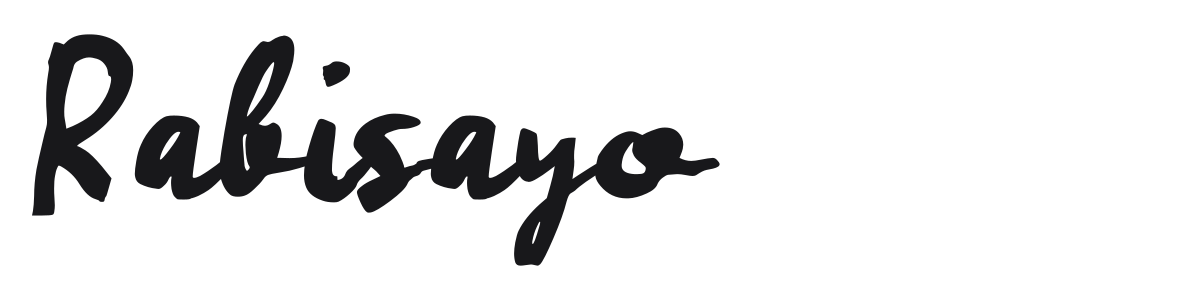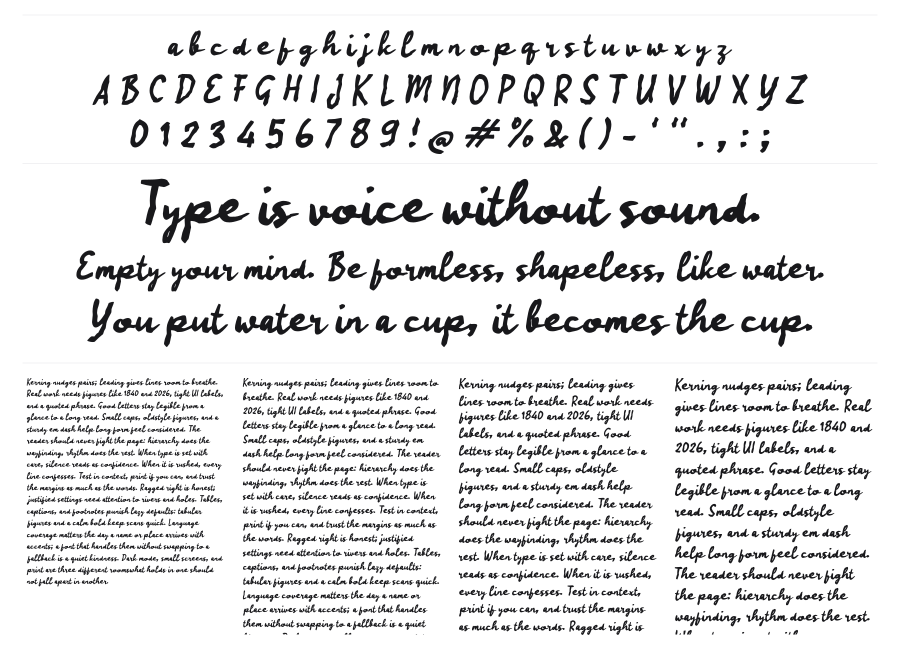
Rabisayo
Rabisayo is a bold brush script with raw, inky energy and confident flowing strokes. The rough-edged texture and strong stroke contrast give it an authentic handmade quality that sits somewhere between street signage and editorial lettering. It works best large, where those gestural details really hit.